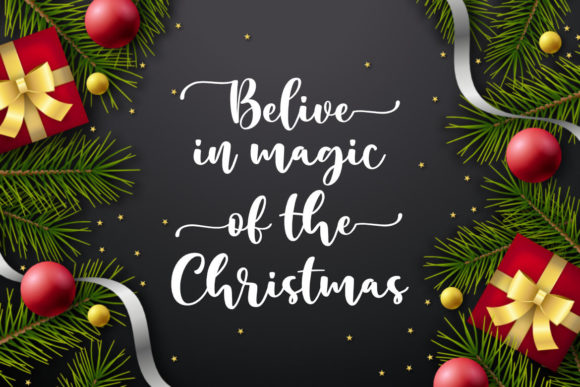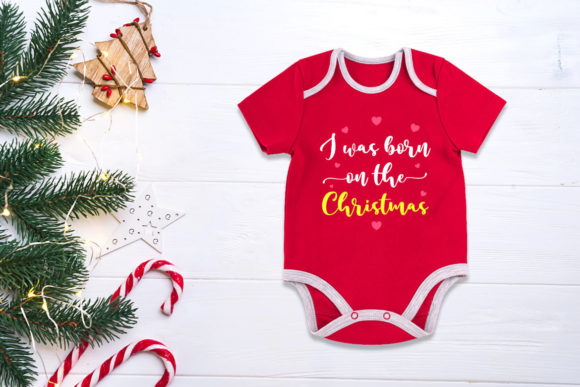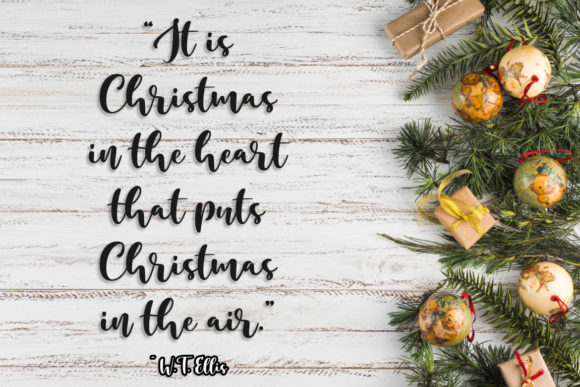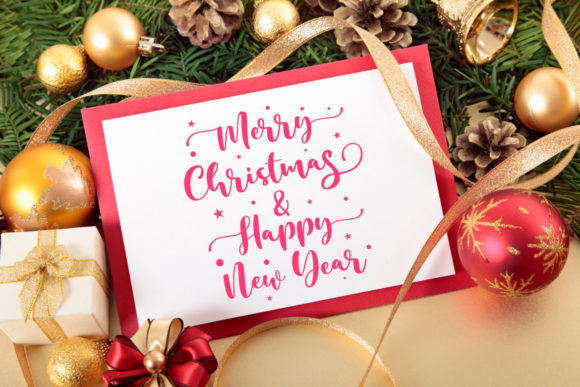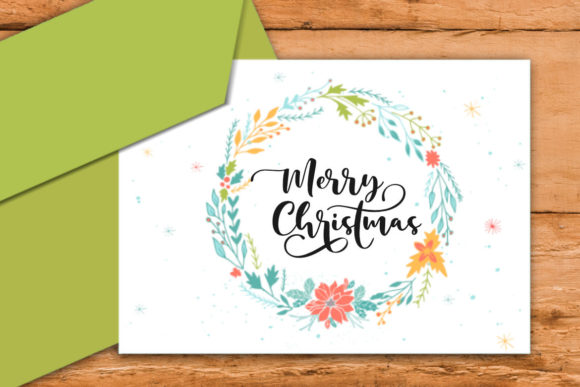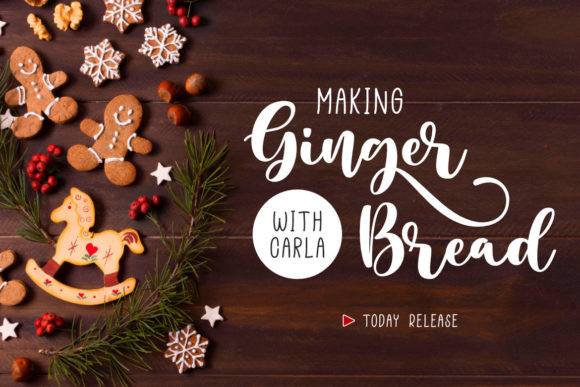
Discover the Amazing Christmas Font: Elevate Your Holiday Designs
The holiday season is upon us, and with it comes the need for beautiful and festive designs that capture the spirit of Christmas. Whether you’re a designer, crafter, or simply someone who loves to get creative, having the right font can make all the difference in creating stunning holiday-themed projects. That’s where the Amazing Christmas Font comes in – a gorgeous and refined script font that’s perfect for adding a touch of elegance and sophistication to your Christmas designs.
What Makes Amazing Christmas Font So Special?
Amazing Christmas is a beautiful and refined script font that boasts a classy, elegant, and modern look. Its versatility makes it suitable for a wide range of design applications, including logos, branding, invitations, stationery, wedding designs, social media posts, and much more. The font’s sleek and sophisticated design ensures that it will complement any design project, adding a touch of luxury and refinement.
Key Features of Amazing Christmas Font
• PUA Encoded: The Amazing Christmas Font is PUA (Private Use Area) encoded, which means that you can access all glyphs and swashes with ease. This feature makes it incredibly easy to use and customize the font to suit your design needs.
• Classy and Elegant: The font’s classy and elegant design makes it perfect for creating sophisticated and refined designs that are sure to impress.
• Modern Look: The font’s modern look ensures that it will fit in perfectly with contemporary design trends, making it ideal for designers who want to create fresh and stylish designs.
• Multipurpose: The Amazing Christmas Font is incredibly versatile and can be used for a wide range of design applications, from logos and branding to social media posts and wedding designs.
How to Use Amazing Christmas Font in Your Designs
The Amazing Christmas Font is incredibly easy to use and can be incorporated into your designs in a variety of ways. Here are a few ideas to get you started:
• Create Stunning Logos: Use the Amazing Christmas Font to create beautiful and sophisticated logos that will help your brand stand out.
• Design Elegant Invitations: The font’s elegant design makes it perfect for creating stunning invitations for weddings, parties, and other special occasions.
• Elevate Your Social Media Posts: Add a touch of sophistication to your social media posts with the Amazing Christmas Font, making them perfect for holiday promotions and campaigns.
• Make Beautiful Stationery: Use the font to create gorgeous stationery, including letterheads, greeting cards, and more.
Why Designers and Crafters Love Amazing Christmas Font
Designers and crafters love the Amazing Christmas Font for its versatility, elegance, and ease of use. Here are a few reasons why:
• High-Quality Design: The font’s high-quality design ensures that it will look great in any design project, whether it’s printed or digital.
• Easy to Use: The font’s PUA encoding makes it incredibly easy to use, even for those who are new to design.
• Customizable: The font’s glyphs and swashes can be easily accessed and customized to suit your design needs.
• Support for Multiple Languages: The Amazing Christmas Font supports multiple languages, making it perfect for designers and crafters who work with clients from around the world.
The Amazing Christmas Font is a beautiful and refined script font that’s perfect for adding a touch of elegance and sophistication to your holiday designs. Its versatility, ease of use, and high-quality design make it a must-have for designers and crafters who want to create stunning holiday-themed projects. Whether you’re creating logos, branding, invitations, or social media posts, the Amazing Christmas Font is sure to become a favorite in your design arsenal.